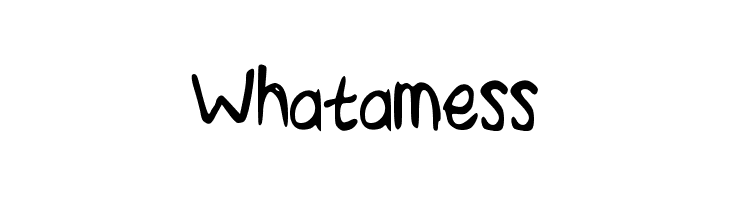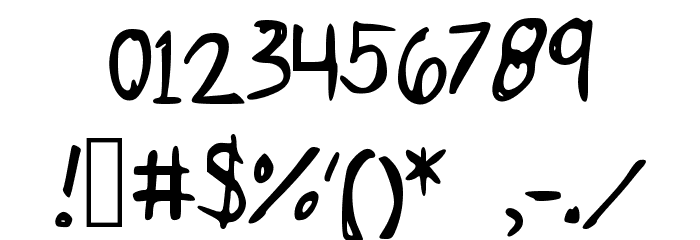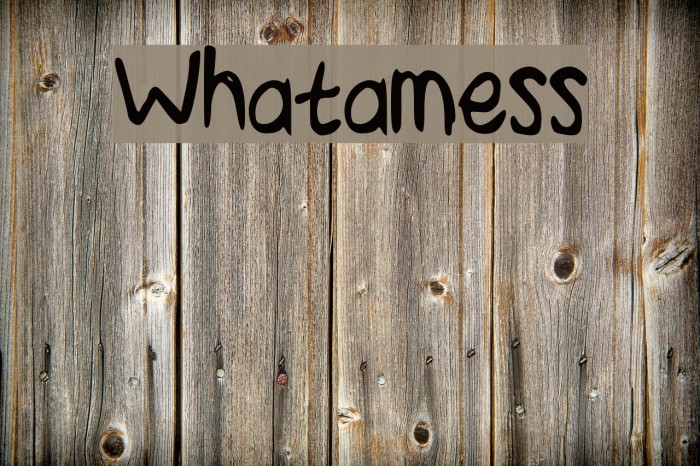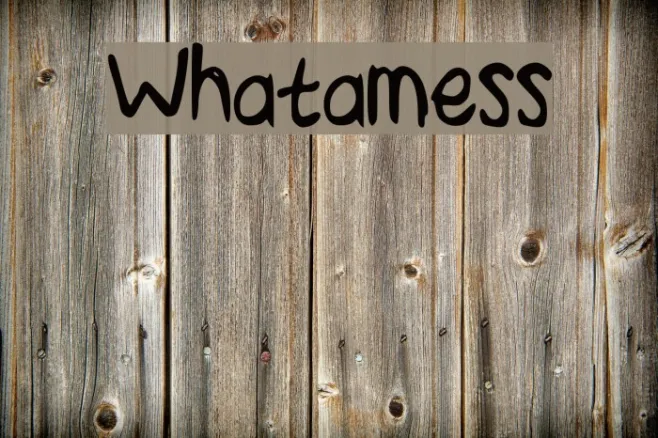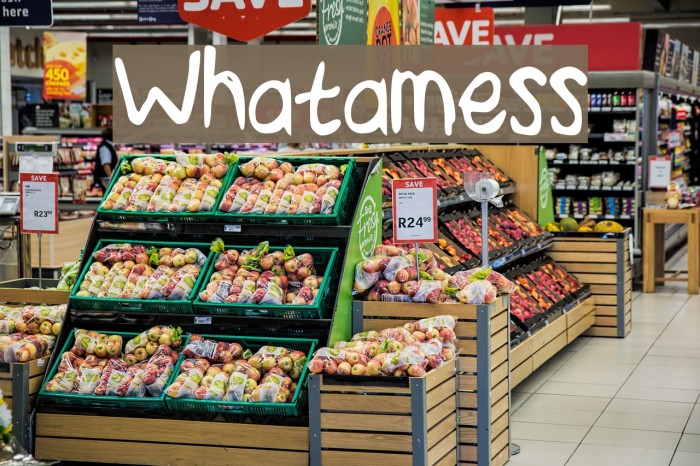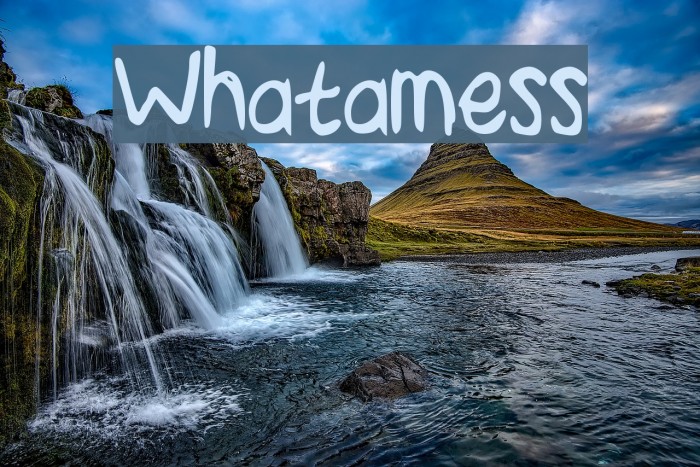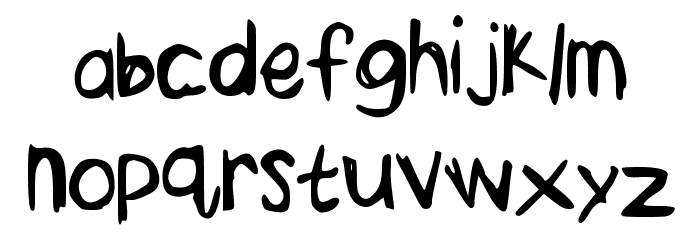
Whatamess Font
Whatamess Description
This playful and energetic font features a handwritten style with a casual, informal appearance. The letters are bold and slightly irregular, giving a sense of spontaneity and creativity. The uppercase and lowercase characters maintain a consistent style, with rounded edges and varying stroke thickness that adds to its charm. The numerals and special characters follow the same lively design, making the font versatile for various uses. Its unique personality makes it suitable for projects that require a touch of fun and individuality.
| Overall Style | Playful |
| Proposed Projects | Ideal for children's books, creative posters, casual branding, and playful invitations. |